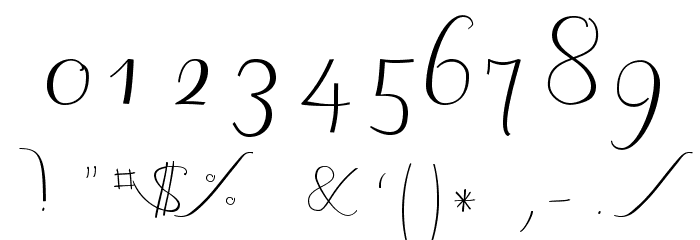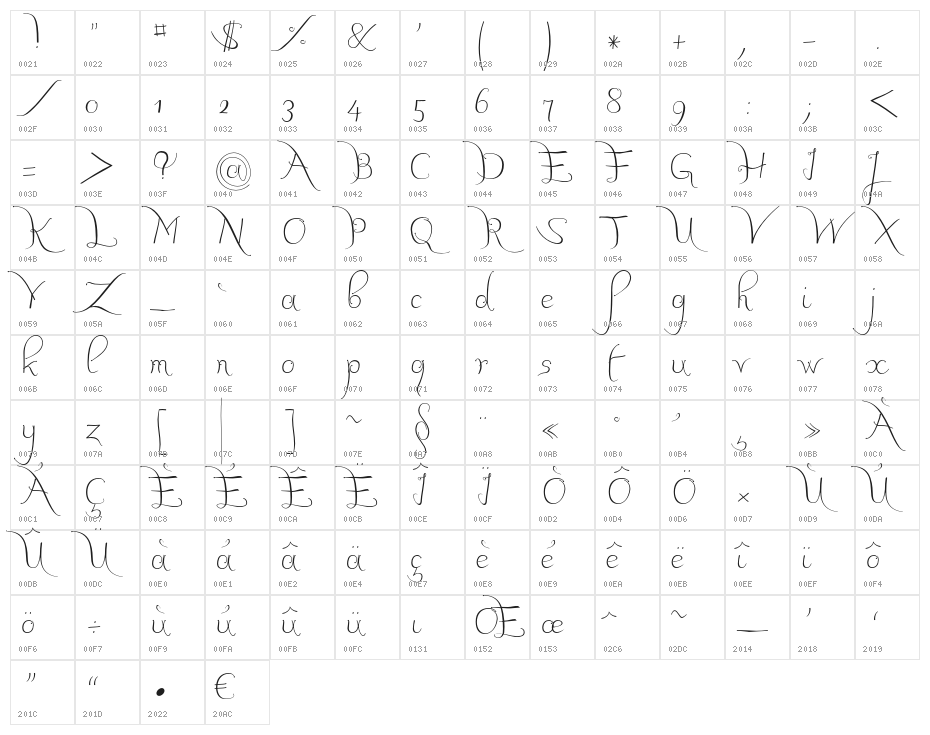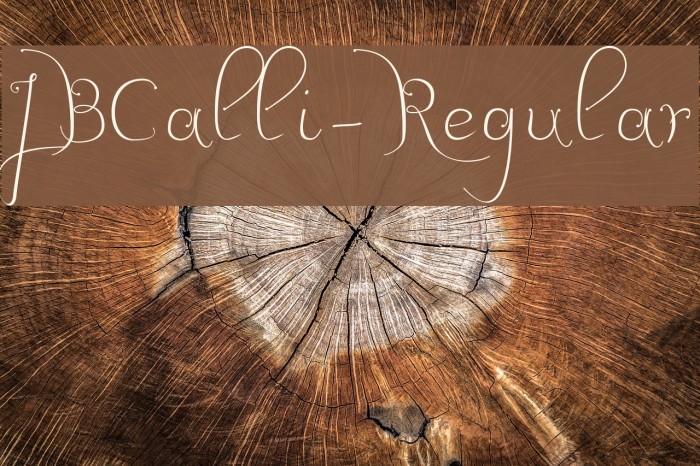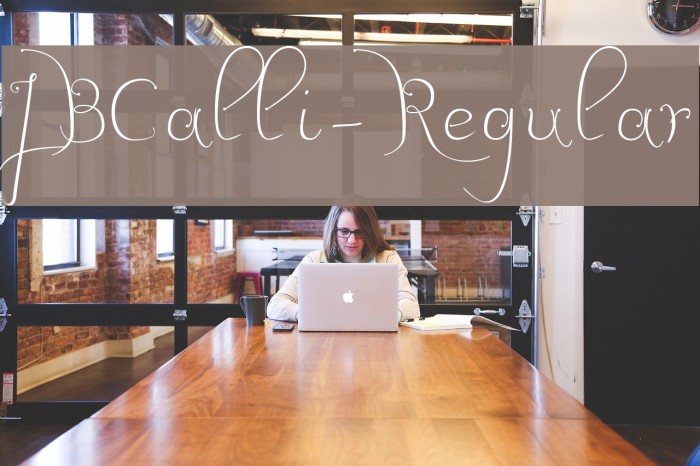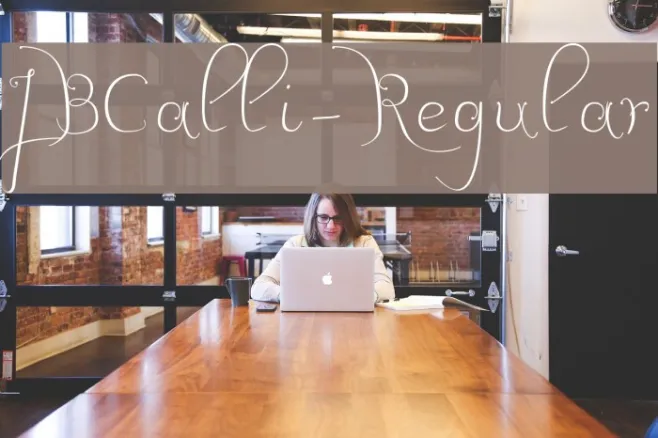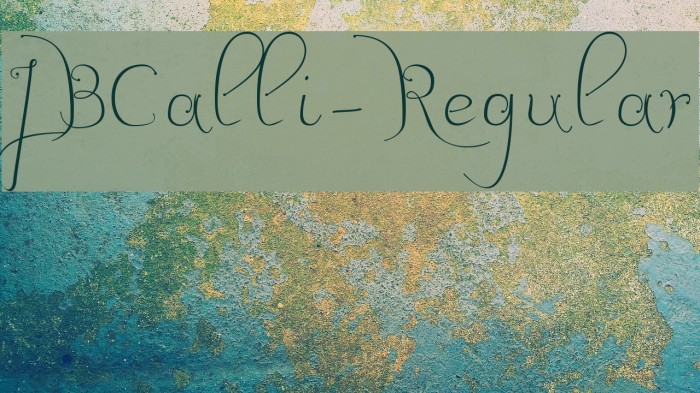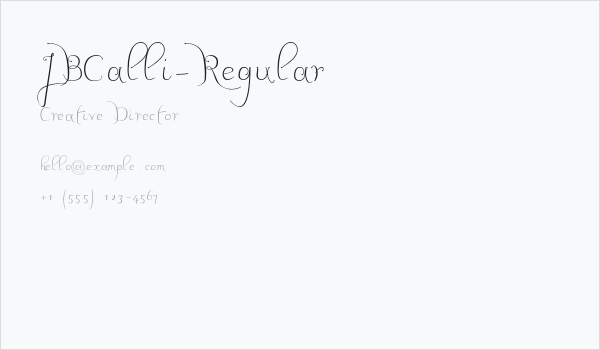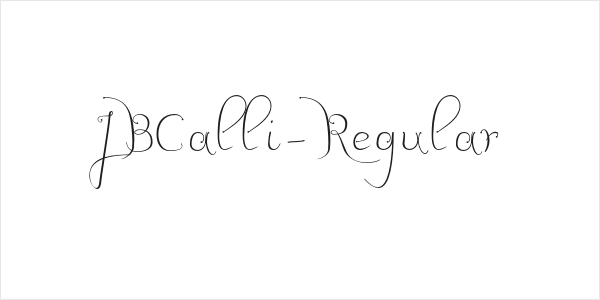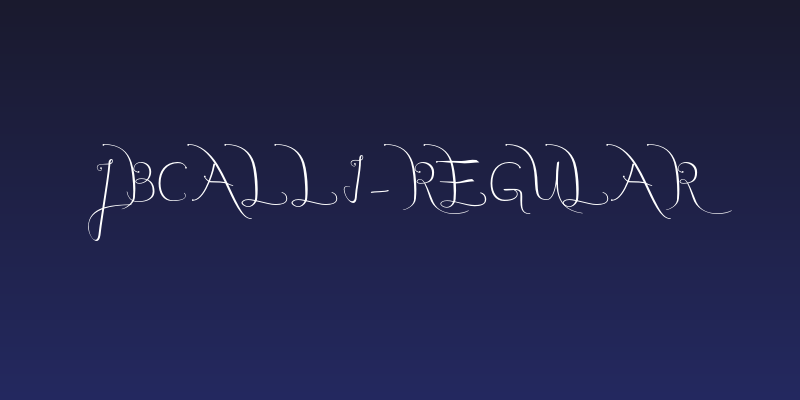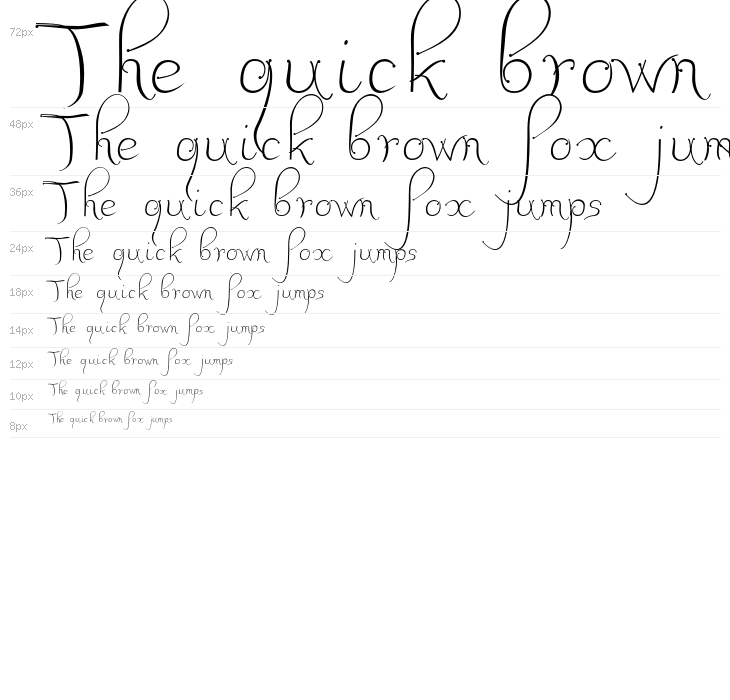
JBCalli-Regular Font
JBCalli-Regular Description
This font exhibits a graceful and elegant script style, characterized by its flowing and interconnected strokes. The uppercase letters are particularly ornate, with sweeping curves and delicate flourishes that add a touch of sophistication. The lowercase letters maintain a consistent fluidity, ensuring readability while preserving the artistic flair. Numbers and special characters are crafted with the same attention to detail, making them seamlessly integrate with the overall design. The font's thin lines and gentle curves evoke a sense of refinement and creativity, making it suitable for projects that require a touch of elegance and artistic expression.
Overall StyleElegant
Use CaseLogos, Invitations, Artistic projects
Proposed ProjectsIdeal for wedding invitations, greeting cards, elegant branding, and artistic projects that require a sophisticated touch.